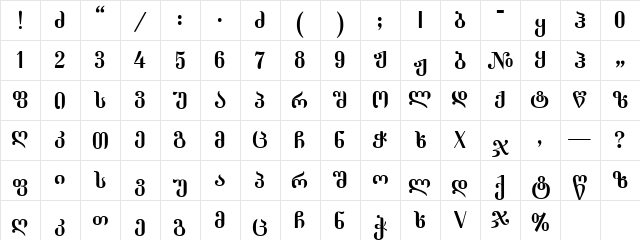
Dumbadze-ITV Regular Font Preview
Dumbadze-ITV Regular
Design Context for Dumbadze-ITV Typeface
Dumbadze-ITV is a composed and adaptable typeface that performs quietly and consistently across a wide range of design contexts.